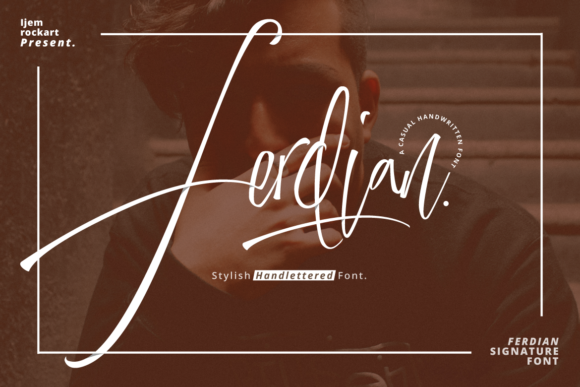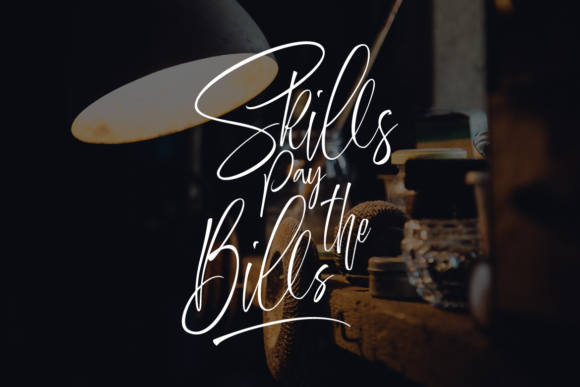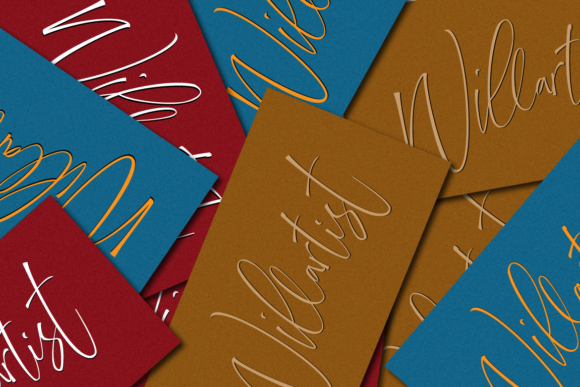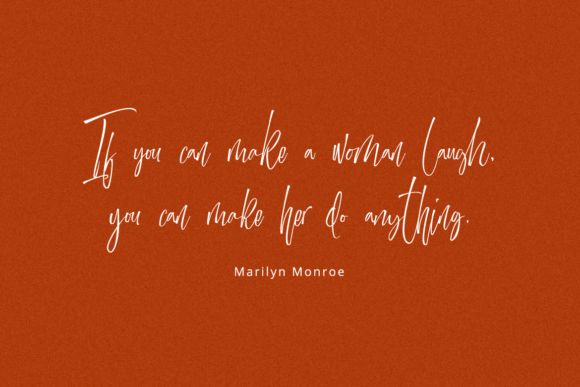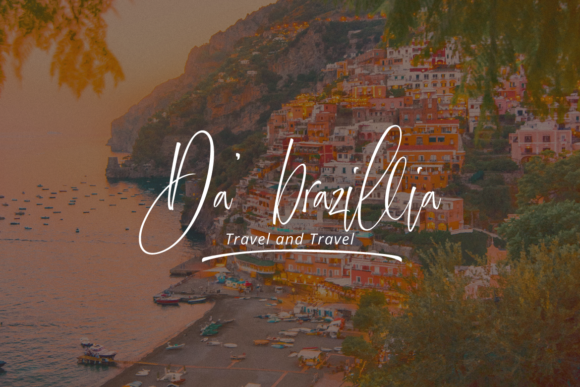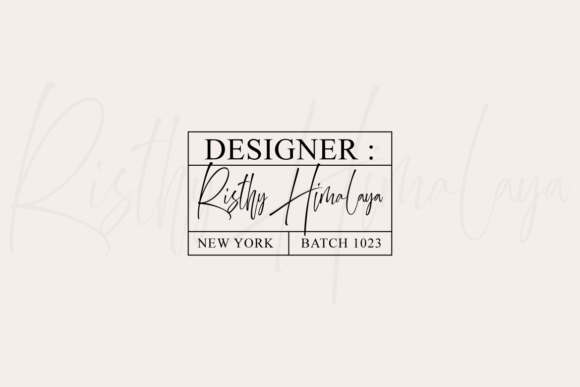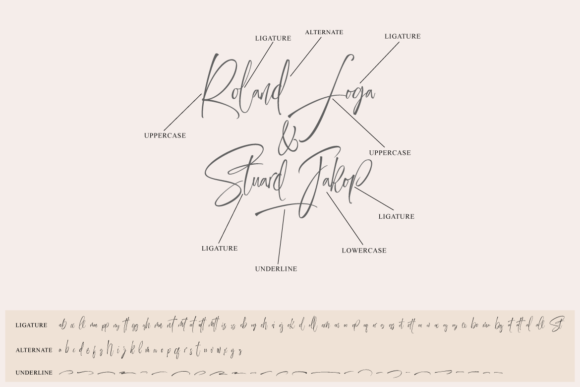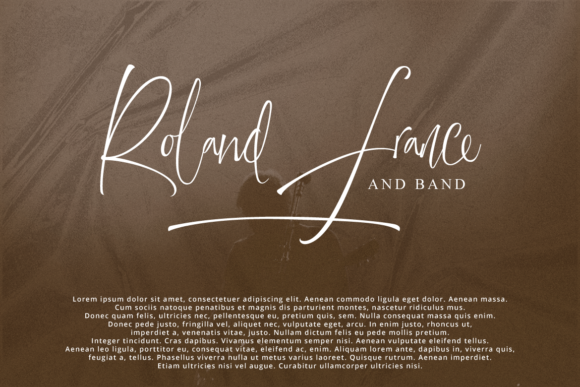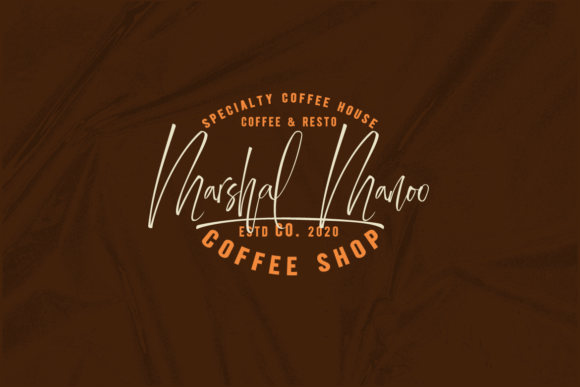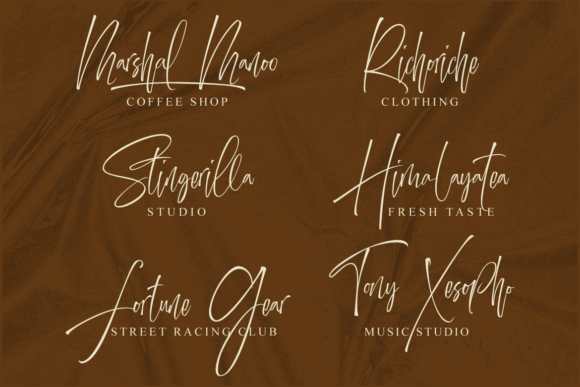
Ferdian Font
About Ferdian Font
Ferdian is a unique and elegant handwritten font. This font is PUA encoded which means you can access all of the glyphs and swashes with ease! It features a varying baseline, smooth lines, gorgeous glyphs and stunning alternates.
Fall in love with its incredibly versatile style and use it to create gorgeous wedding invitations, beautiful stationary art, eye-catching social media posts, and much more!